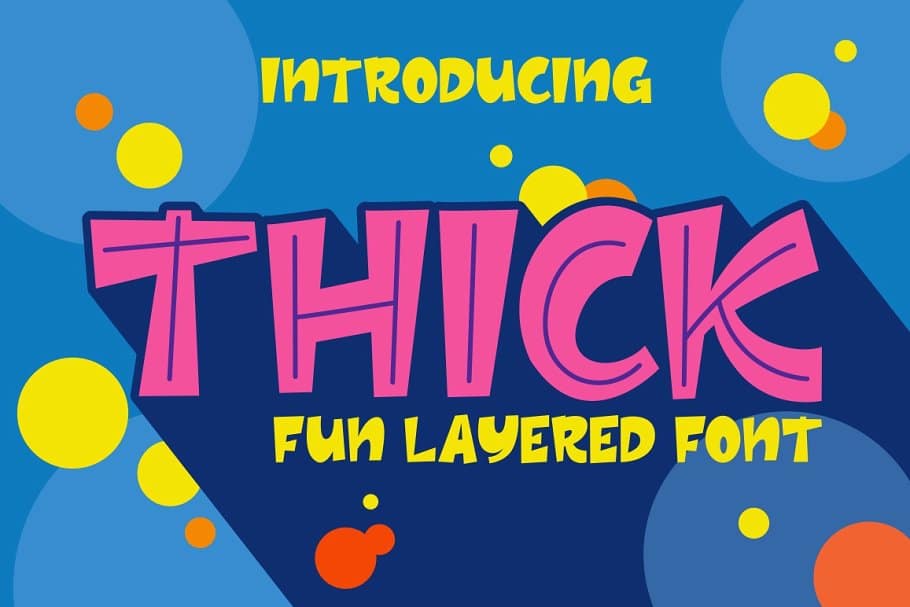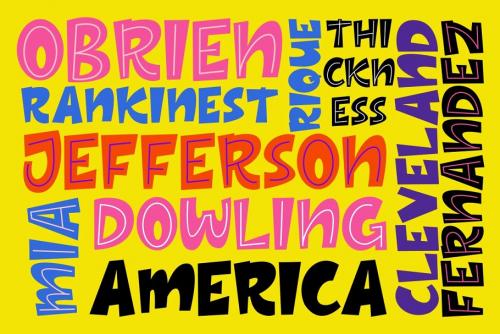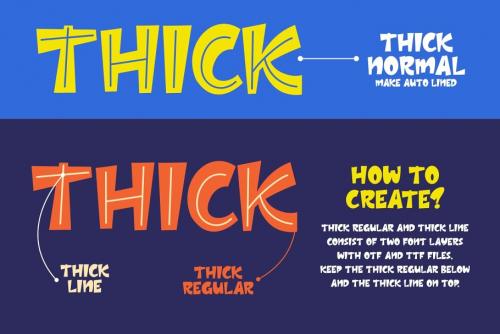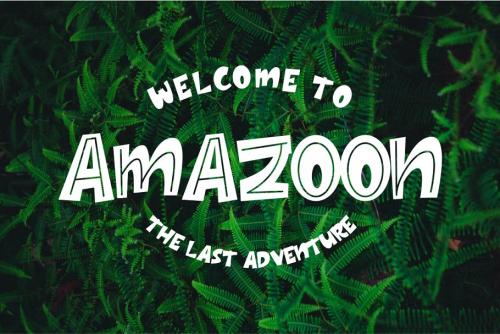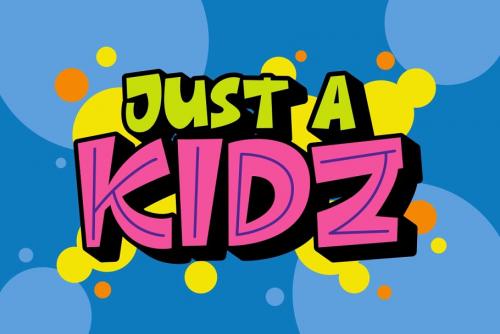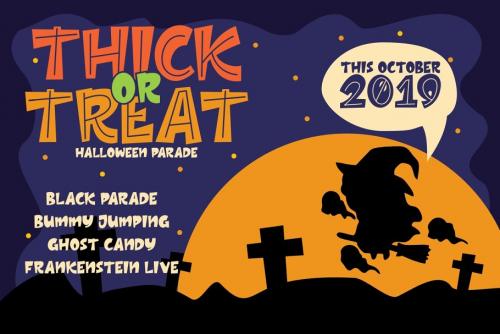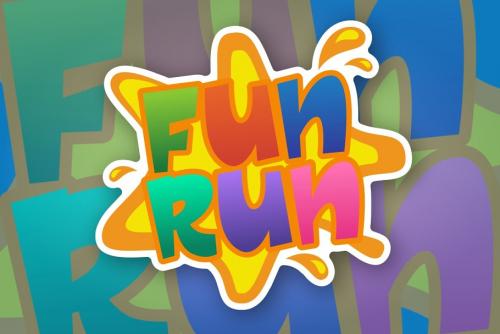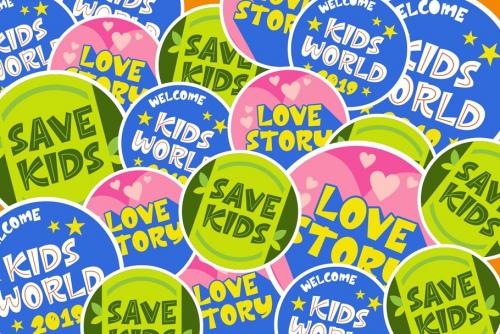
Thick is the perfect font for all your fun designs and also for HALLOWEEN PARTY POSTER. The main font file is equipped with ordinary characters, as well as more than 350 glyphs to support most Latin-based languages.
Everything is made with the same brush, and everything is the same size as Thick, so you can be sure they will work well together! It is suitable for you to use in making t-shirt design, quote, label, packaging, logo type, or long writing. Because we have compiled kerning and matrices that are tailored to your needs.